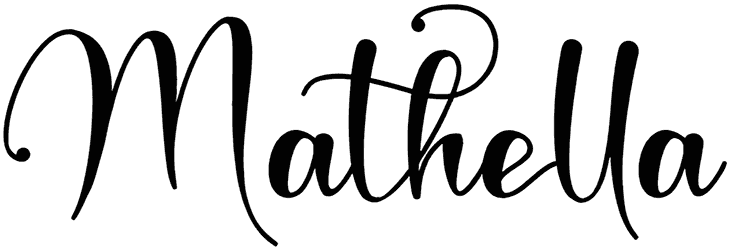
Mathella Font
With a brief look at the words put together with charm, it can attract many audiences. This classic romantic font, named Mathella, is presented with delicate curvy letters that reflect a lovely vibe. You can adorn words of your novel layouts, such as postcards, invitations, branding, or many others, and make them ravishing.